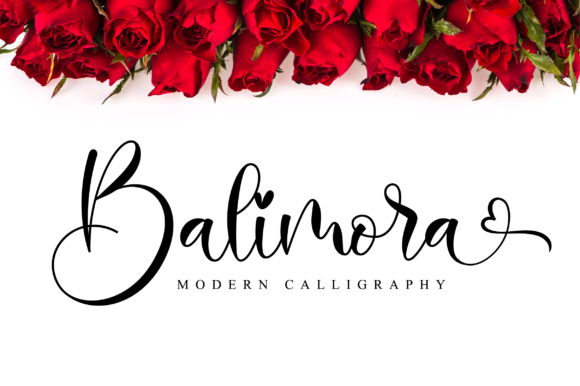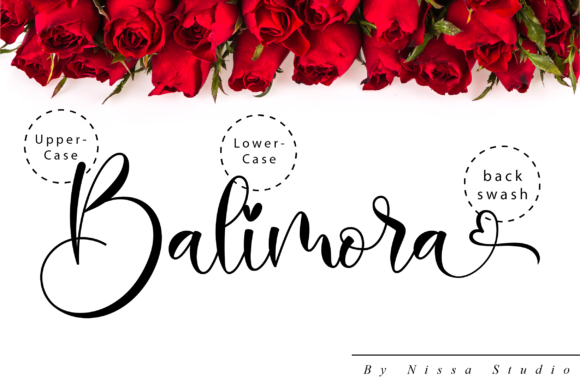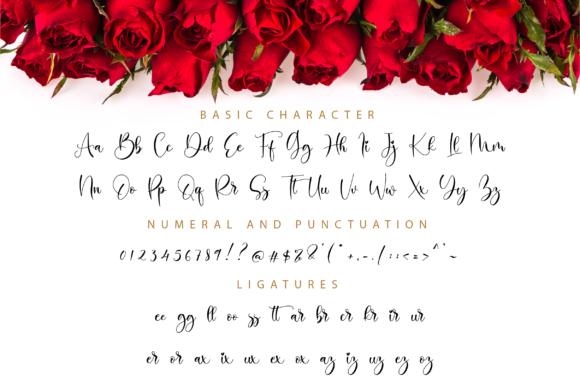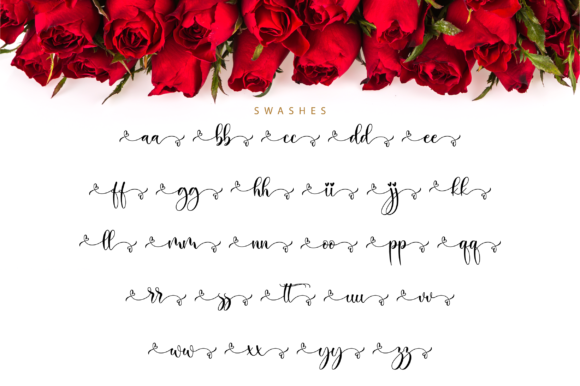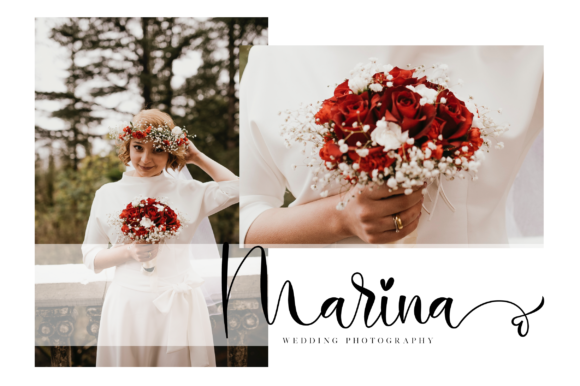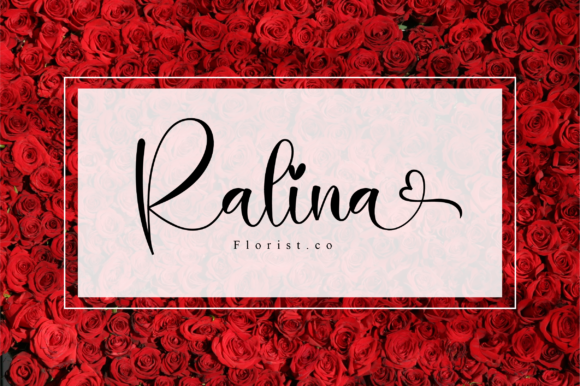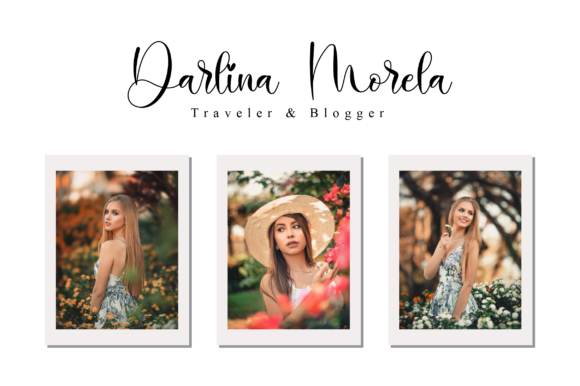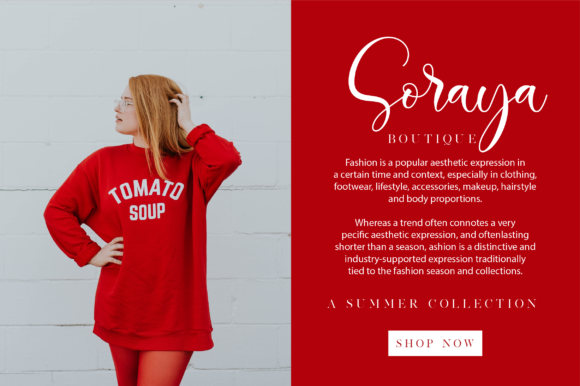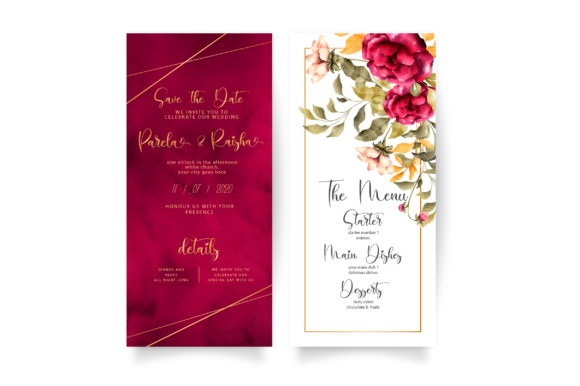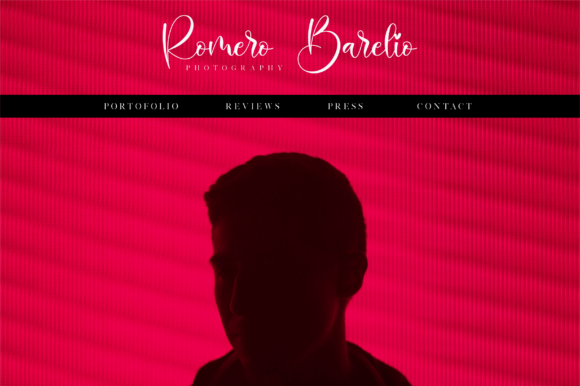
Balimora Script Font
About Balimora Script Font
Balimora is an incredibly beautiful script font. It has a classy, elegant, and modern look which can be used for logos, branding, invitations, stationery, wedding designs, social media posts, and much more!